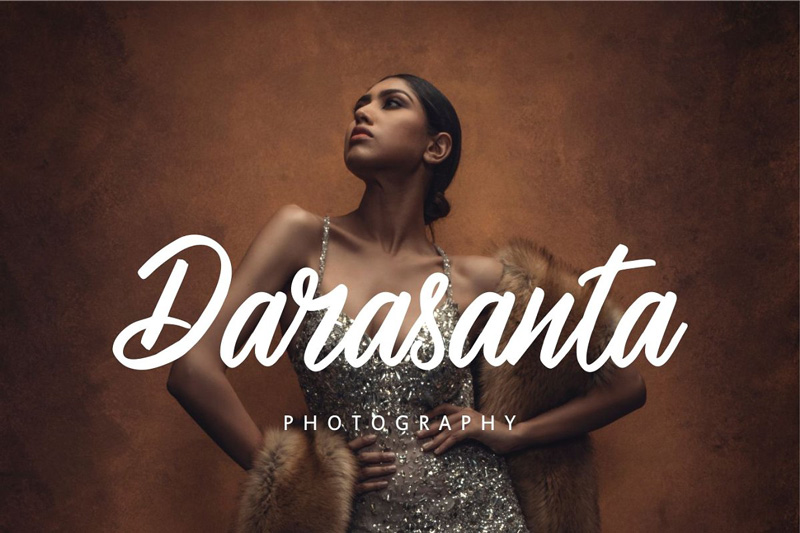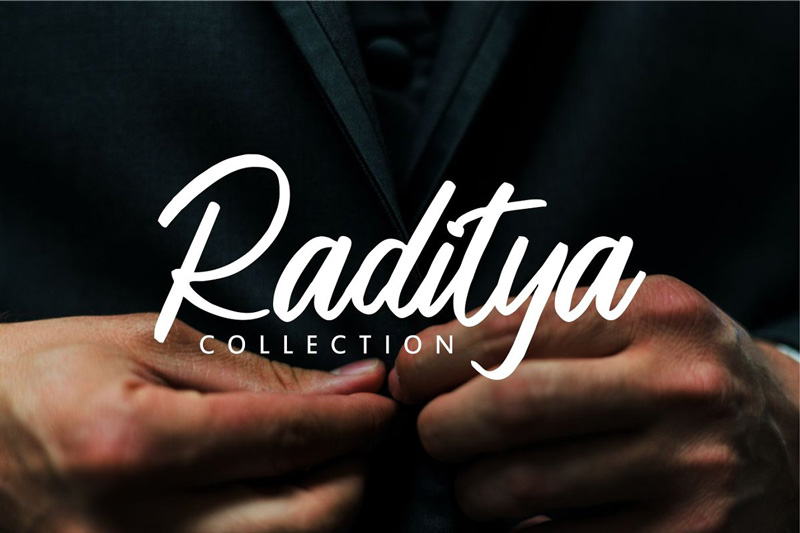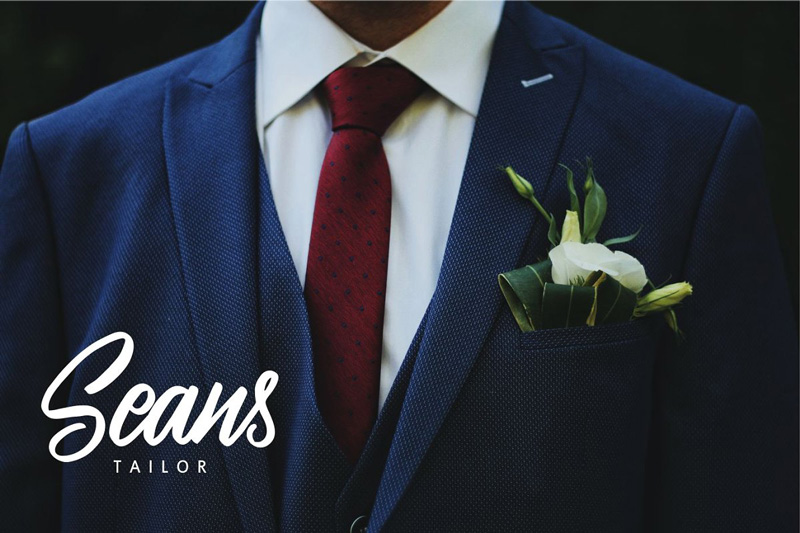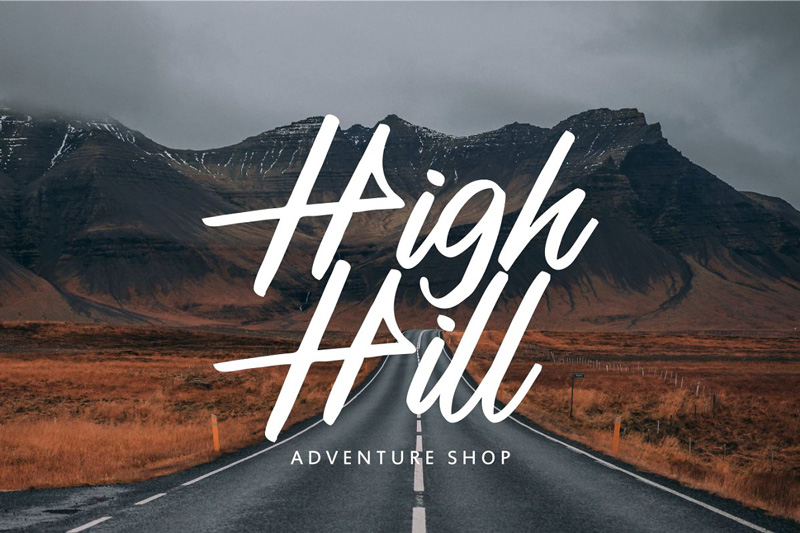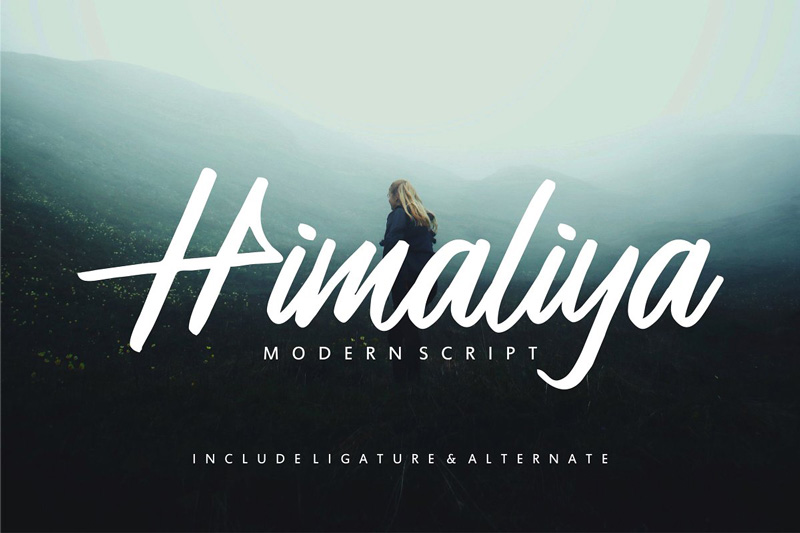
Himaliya Handwritting Script Font
Himalaya Handwriting is a calligraphy-style script font. This font made for feminine related work. You can use this font for the logo, Greeting Card, weeding card, label, poster and much more.